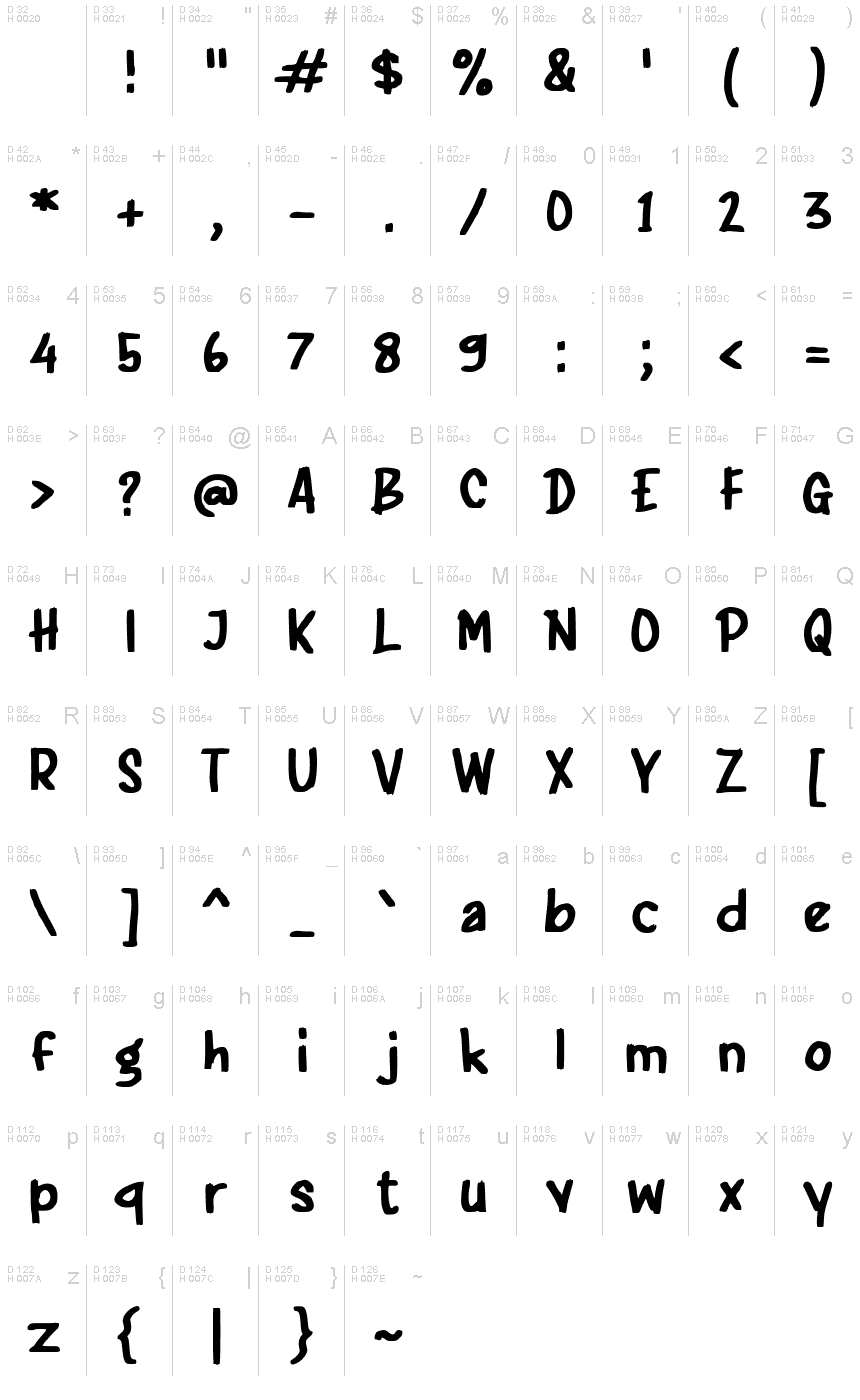
Float Drink
Float Drink, designed by wep, is a captivating brush font that adds a touch of whimsy and elegance to any project.
With its fluid strokes and playful curves, this font is perfect for creative endeavors such as children's book illustrations, greeting cards, and logo designs. Its versatile nature also makes it a great choice for food packaging labels, restaurant menus, and cafe signage.
Float Drink effortlessly captures attention with its unique brush style, bringing an artistic flair that will make your projects stand out from the crowd.
With its fluid strokes and playful curves, this font is perfect for creative endeavors such as children's book illustrations, greeting cards, and logo designs. Its versatile nature also makes it a great choice for food packaging labels, restaurant menus, and cafe signage.
Float Drink effortlessly captures attention with its unique brush style, bringing an artistic flair that will make your projects stand out from the crowd.